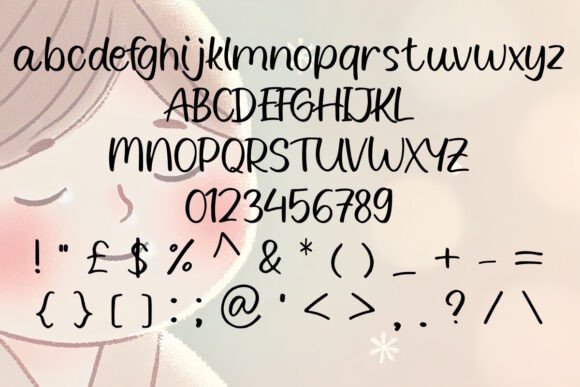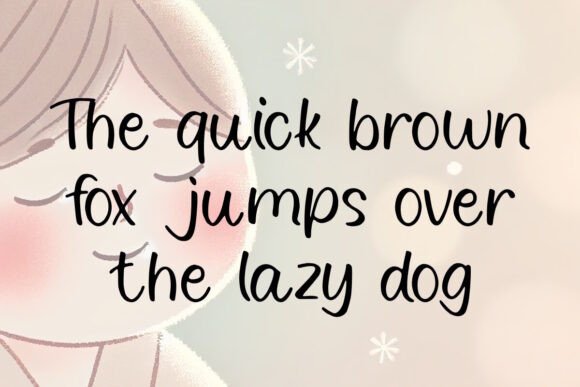
Introduction to Rosy Cheeks Font
Do you remember that moment when you stumbled upon the perfect font to match your creative vision? For many designers, it’s a rush of excitement and a sense of accomplishment that comes with finding the right design resource. For us, that moment is when we discovered the Rosy Cheeks Font – a soft and cheerful font that brings a warm, friendly touch to any project.
With its gentle curves and playful strokes, Rosy Cheeks Font is perfect for any creative project that needs a dash of personality. Plus, it comes with a transparent background, making it easy to customize and integrate into your design. So, what are you waiting for? Get ready to brighten up your work with the Rosy Cheeks Font!
Key Features of Rosy Cheeks Font
- High-quality design resource suitable for various creative projects, including digital art, graphic design, and publishing.
- Rosy Cheeks Font features a transparent background, allowing for seamless integration with any design or image.
- Includes a range of stylish and elegant characters, perfect for adding a touch of sophistication to any creative project.
- Unique characteristic: The font’s playful, whimsical feel makes it ideal for creating eye-catching titles, headings, and quotes in creative projects.
Honest Review: Rosy Cheeks Font
I recently had the chance to work with the Rosy Cheeks Font, and I must say, I was quite impressed. This design resource is perfect for any creative project that requires a touch of elegance and sophistication.
- The high quality of the font is evident in its crisp, clean lines and beautiful letterforms.
- The font is incredibly versatile, suitable for a wide range of design applications, from logos to packaging.
- The transparent background is a thoughtful touch, allowing for seamless integration into any design.
One potential drawback is the limited character set, which may not be suitable for extended text blocks.
Tips for Getting the Most Out of Rosy Cheeks Font
For the best results, use the Rosy Cheeks Font in conjunction with a light background or transparent background. Experiment with different font sizes and colors to create a unique look.
The Rosy Cheeks Font is perfect for creating invitations, social media graphics, and other creative projects where a high-quality, elegant font is desired.